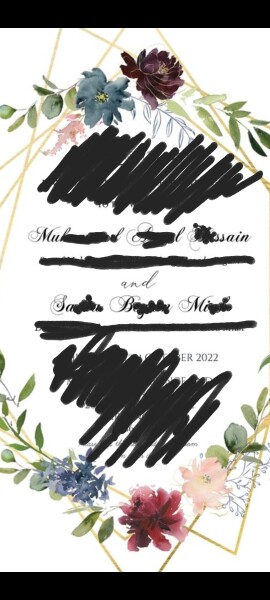
Help identifying this font!
I'm wondering if anyone can help identify what font this is please. I have spent far too long of my morning and afternoon trying to work out what font it is with no luck.
There's a wedding invite font on Etsy- Lazerez- looks the same or very similar.
Is the S the same as this one?
this one?
There’s loads of copperplate script fonts will all look really similar - you can upload a pic to fontsquirrel